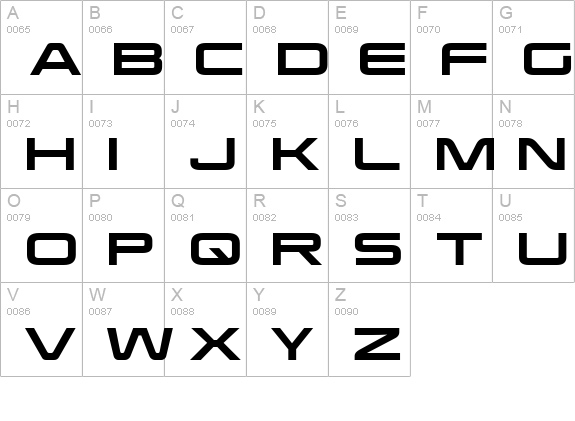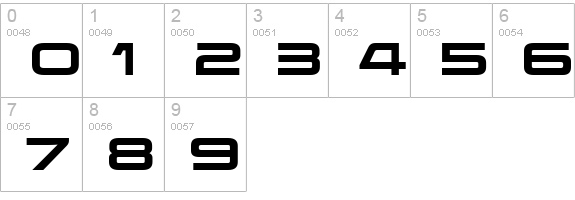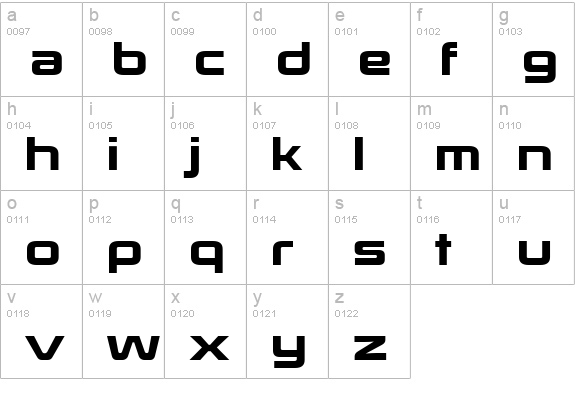
Korataki is a modern and stylish font that exudes sophistication and elegance. With its sleek lines and contemporary feel, Korataki is perfect for adding a touch of class to any design project. Whether you are creating a logo, branding materials, or website graphics, this font is sure to make a statement. What's even better is that Korataki is available for free download at FontsMarket.com. Yes, you read that right - you can get your hands on this stunning font without spending a dime. Don't miss out on the opportunity to elevate your designs with Korataki, now easily accessible for free at FontsMarket.com.